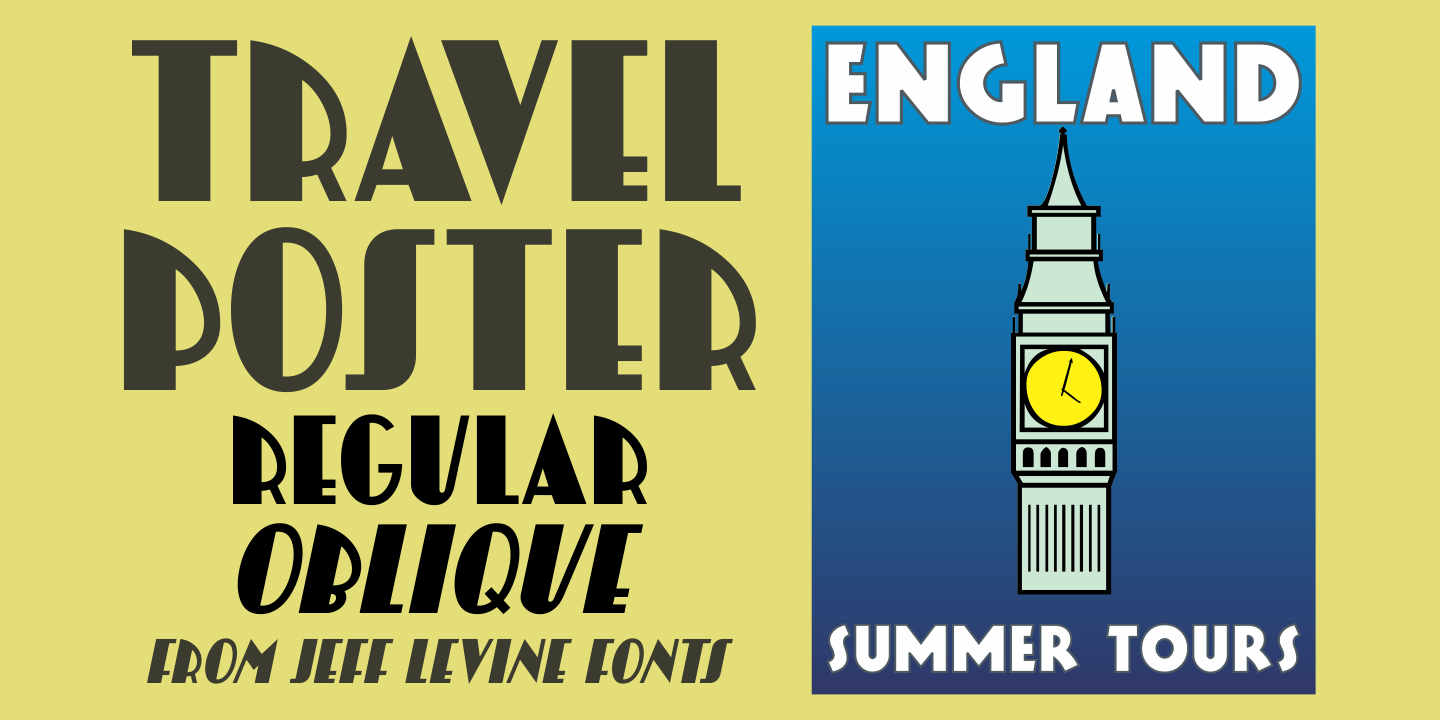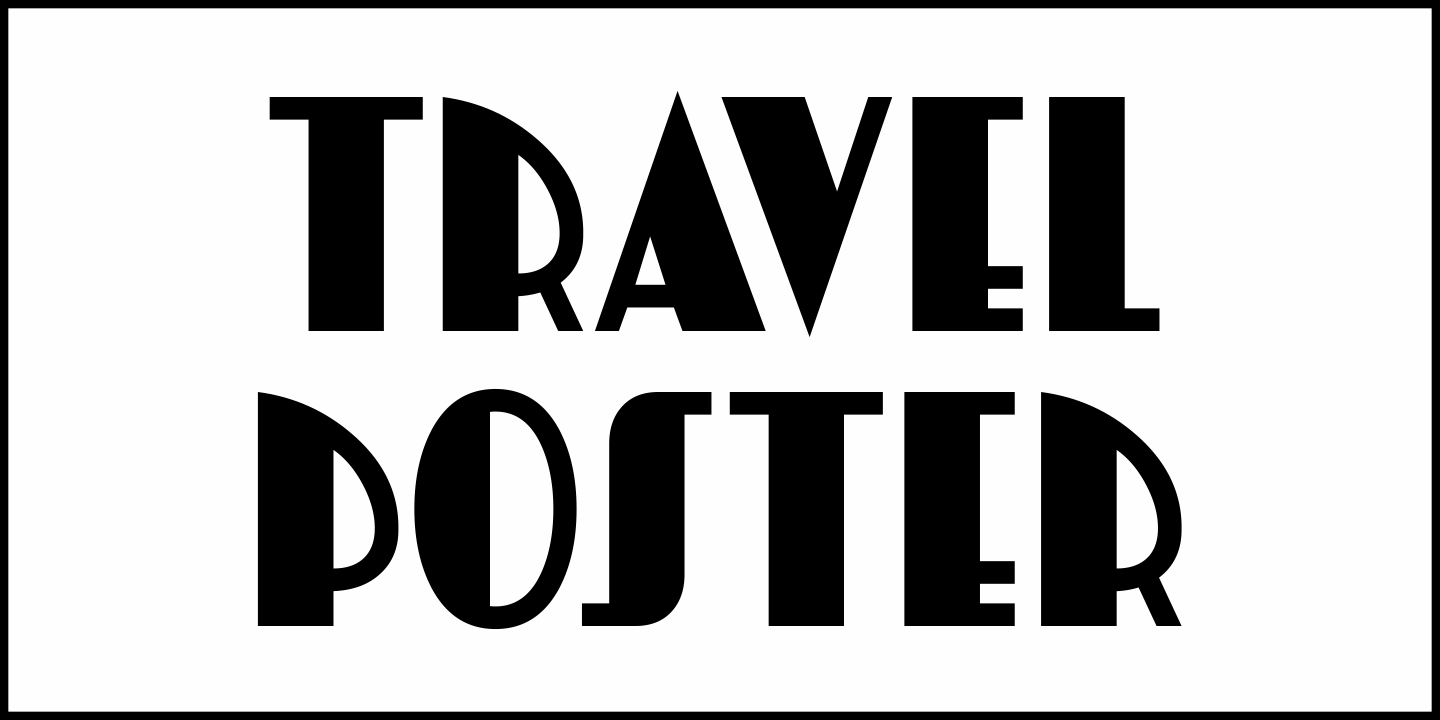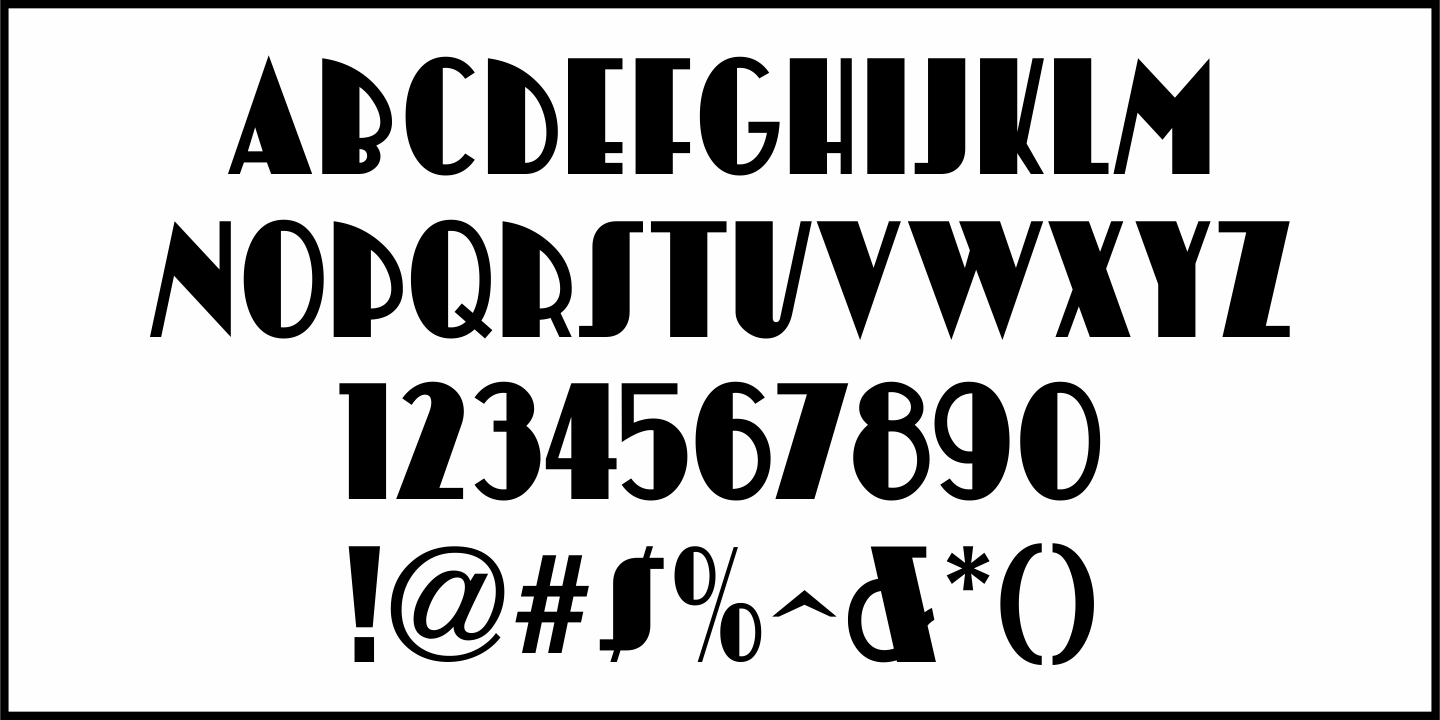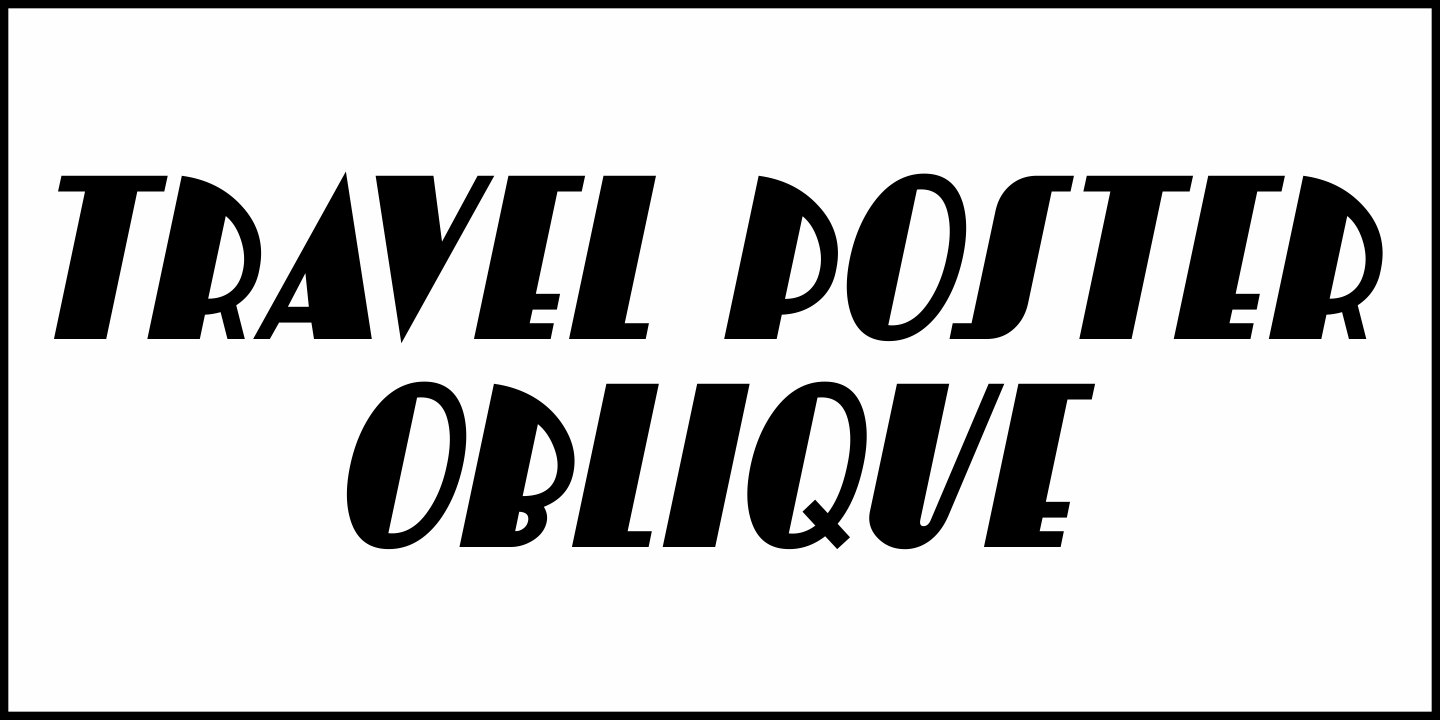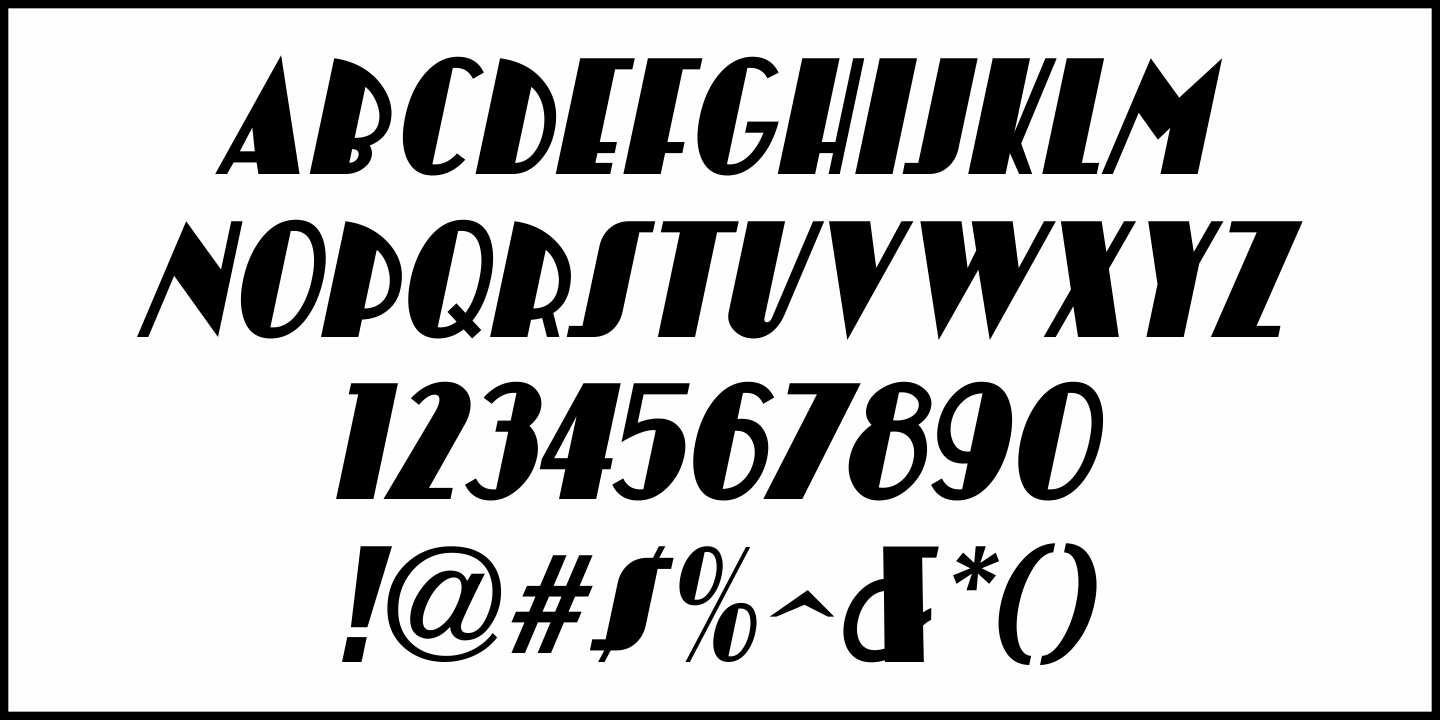
Travel Posters
A 1927 travel poster for visiting what was then Palestine and Near East was hand lettered in an early Art Deco thick-and-thin type face.
The lettering was redrawn digitally, and is now available as the aptly-named Travel Poster JNL, in both regular and oblique versions.